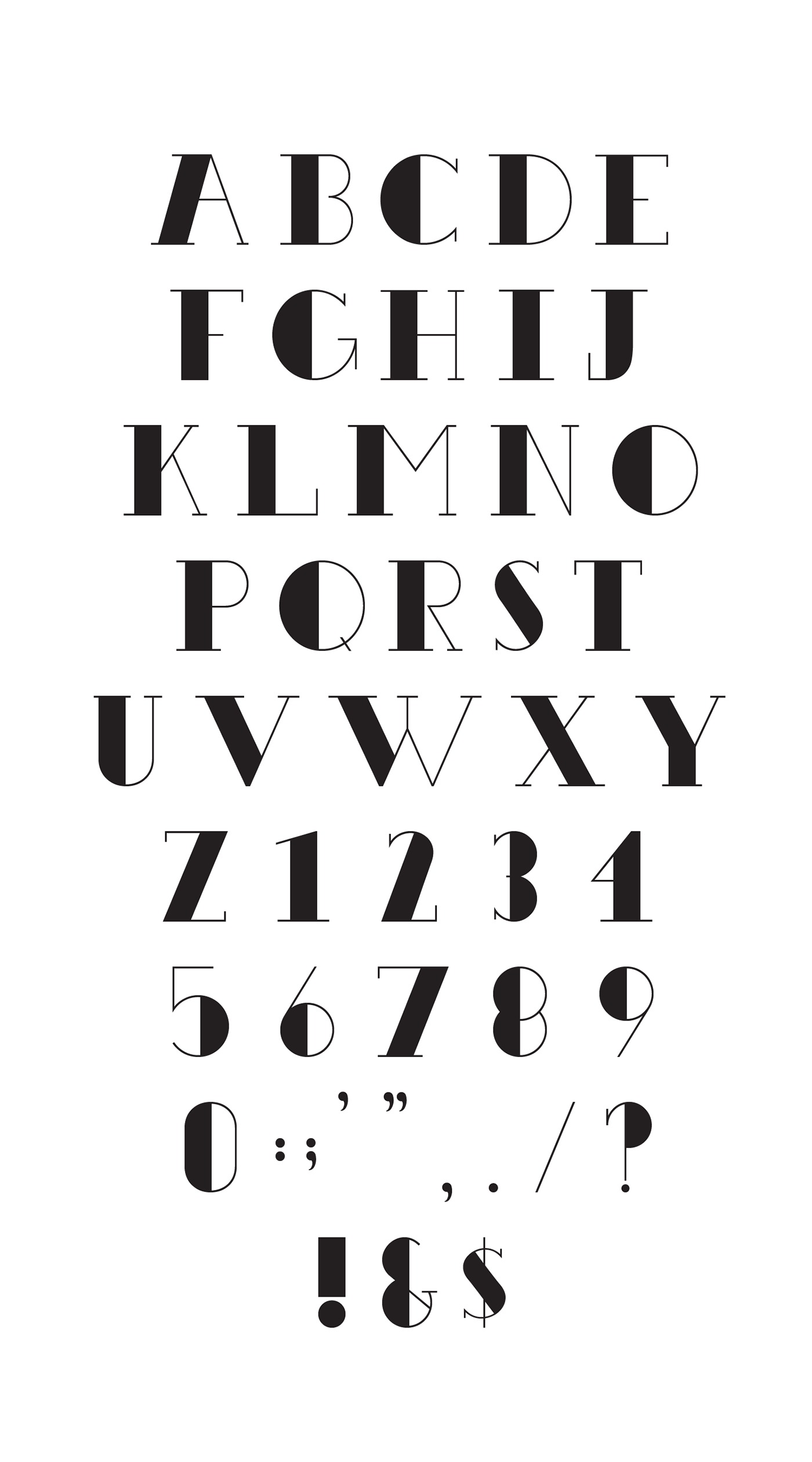
Benthem Display Font
This bold all-caps display typeface was designed to have a loud prominence that would work great for magazine layouts, posters, logos, headings, and much more. Its thick wide letters and flat-top serifs give it a strong uniform look that can easily be stacked up. Use it on your next project to add a laid-back but bold sound.